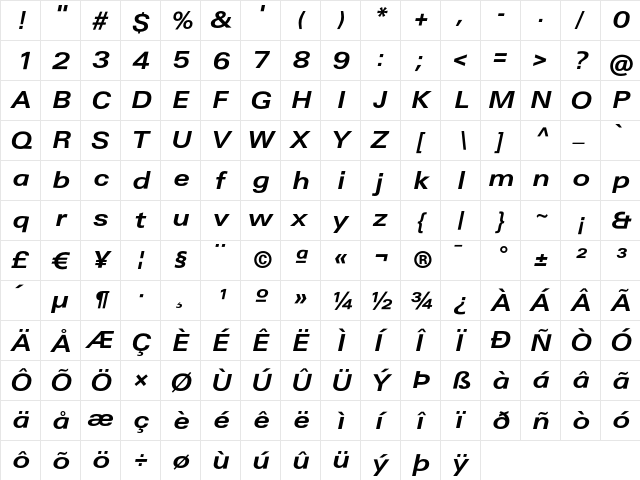
AudiSansExt BoldItalic
Design Context for AudiSansExt Typeface
AudiSansExt is a composed and adaptable typeface that performs quietly and consistently across a wide range of design contexts. The dynamic lean of this cut emphasises speed and emphasis in any layout. Its bold stroke weight gives it real presence on the page.